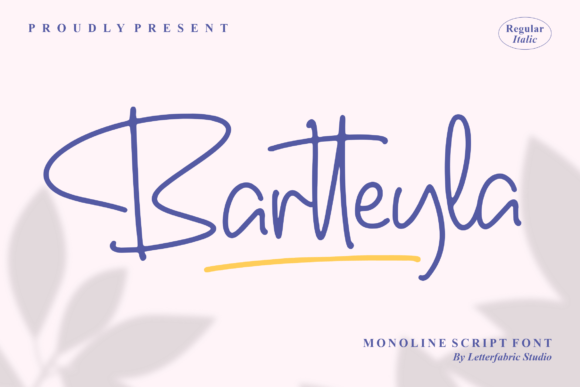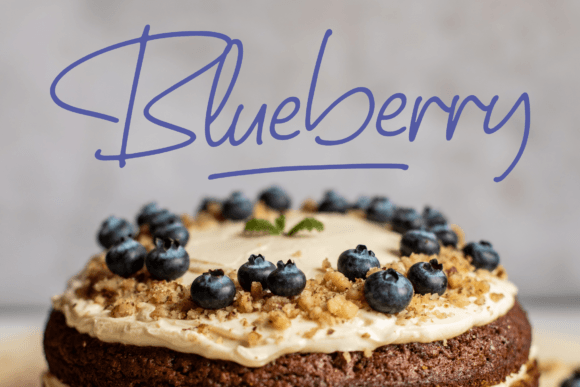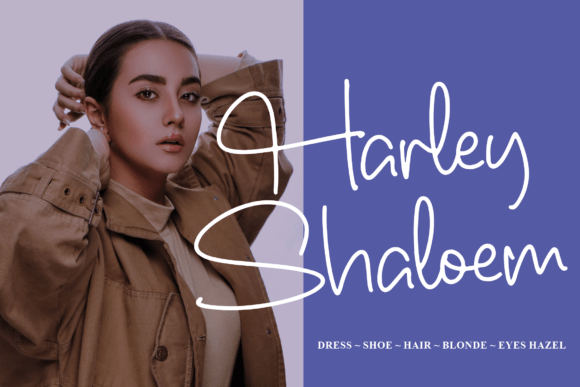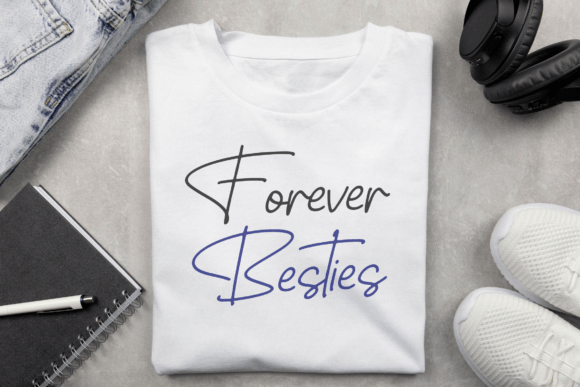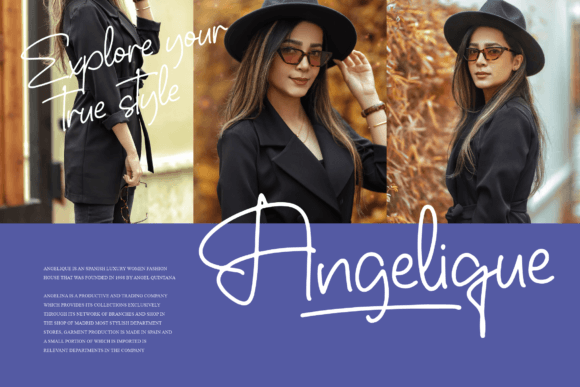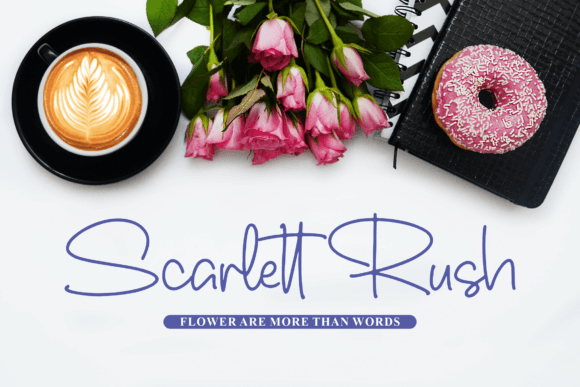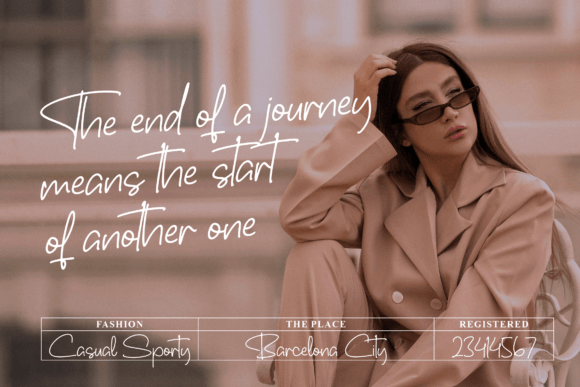
The Perfect Script for Your Creative Vision
Have you ever been working on a design project, and suddenly, the perfect font pops into your mind? That’s exactly what happened to many designers when they discovered the Bartteyla Font. A stunning monoline script font that elevates any project to new heights. From logos to branding projects, homeware designs to product packaging, this font has it all.
Bartteyla Font is more than just a font – it’s a key to unlocking your creative potential. With its elegant and sophisticated design, it’s the perfect choice for any project that requires a touch of class. Whether you’re designing a logo, a book cover, or a set of greeting cards, this font will add a beautiful script taste that will leave a lasting impression.
Bartteyla Font Key Features
- Unique Characteristics: Bartteyla Font features a unique blend of modern and vintage elements, making it suitable for various design projects, including branding, advertising, and editorial content.
- Kerning and Ligatures: The font includes advanced kerning and ligature features, ensuring smooth and professional typography in any design project.
Bartteyla Font Review
First off, let’s talk about what I like about the Bartteyla Font. ✨ The font’s modern, elegant design is a great starting point. It’s perfect for creating a professional, high-end feel in any project. The clean lines and precise curves give it a sophisticated look that’s hard to resist.
Another thing that stands out is the versatility of the font. It’s suitable for a wide range of applications, from logos to headings, and even body text. The font’s scalability also means it looks great in both large and small sizes.
- ⚠️ The font may not be suitable for informal or casual projects, as its elegant design might come across as too formal.
- ⚠️ Some users may find the font’s modern style a bit too plain or lacking in character.
- ⚠️ The font’s limited character set might be a concern for some users who require a wide range of special characters or languages.
Overall, the Bartteyla Font is a solid choice for anyone looking for a modern, elegant design. While it may have some limitations, its versatility and scalability make it a great option for a wide range of projects.
Tips for Getting the Most Out of Bartteyla Font
To get the most out of the Bartteyla Font, use it in contexts where a elegant, handwritten look is desired, such as:
- Food and drink menus
- Artistic and creative projects